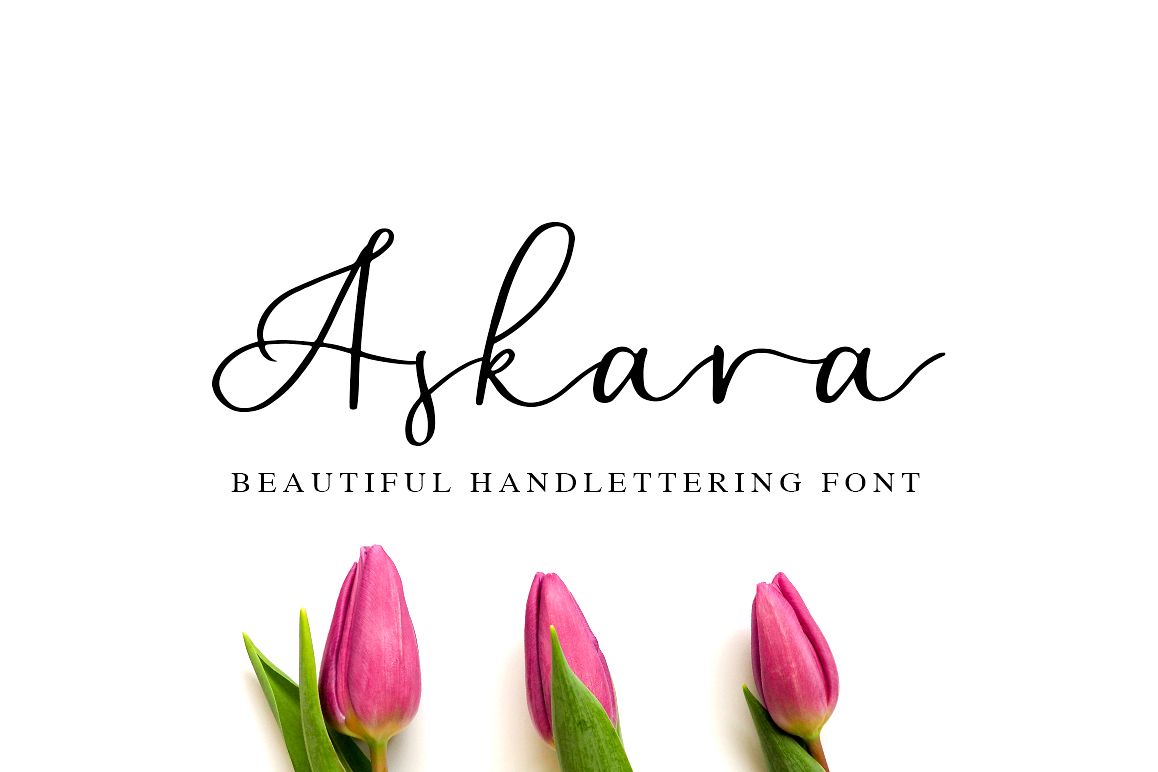
Askara
Askara script is handwritten stylish calligraphy font, with a elegant and tasty letters it's allow you to make beautifull hand-lettering typography easily.
Askara script is perfect to use for Logo, Branding, Apparel Design, Instagram Quote, Printable Quote, Poster, Mural, and etc.
This font comes with upper and lowercase characters, large set of punctuation glyphs, numerals, and supports international languages.